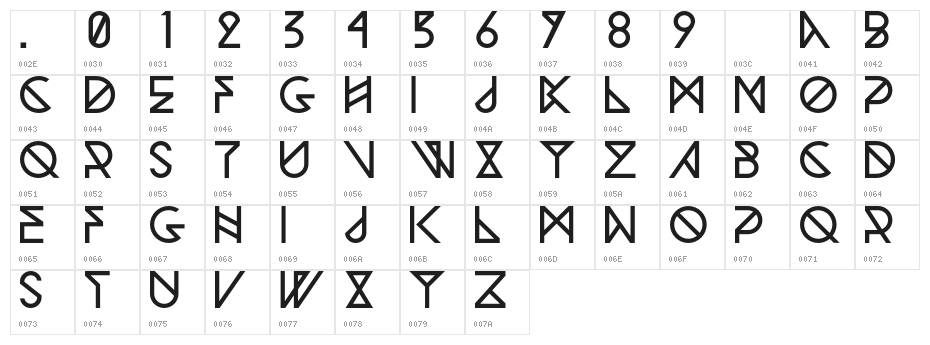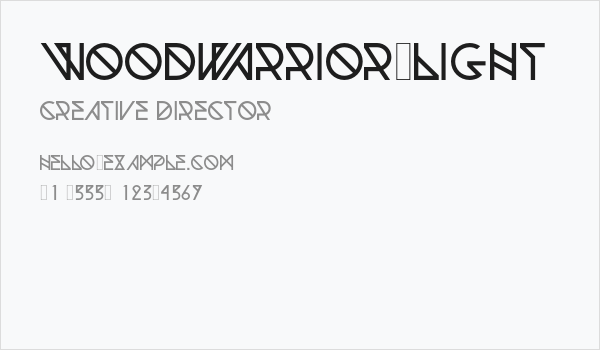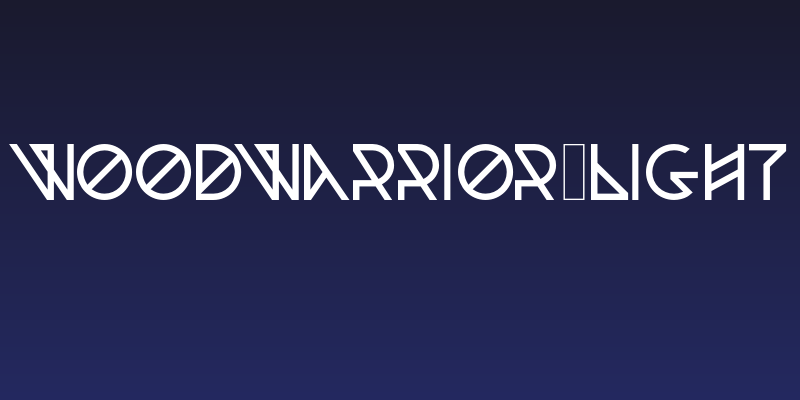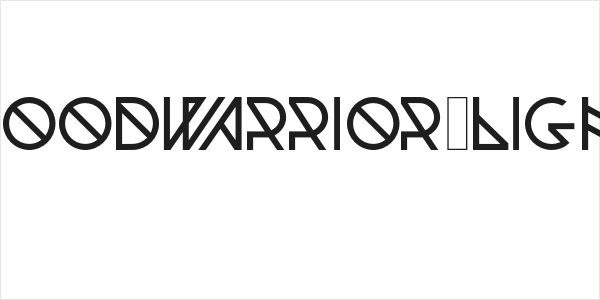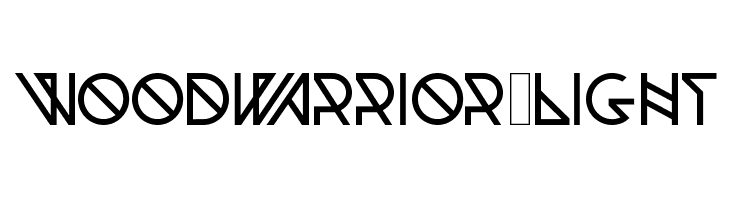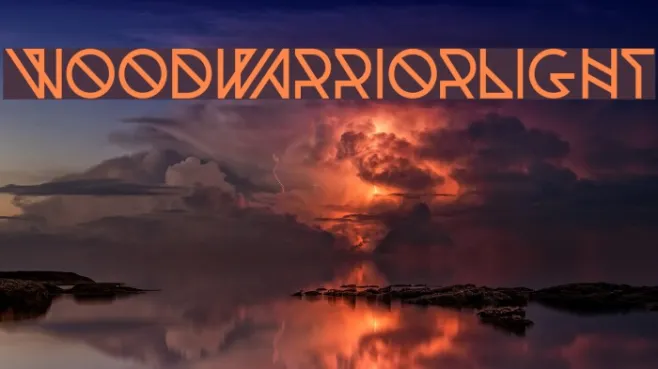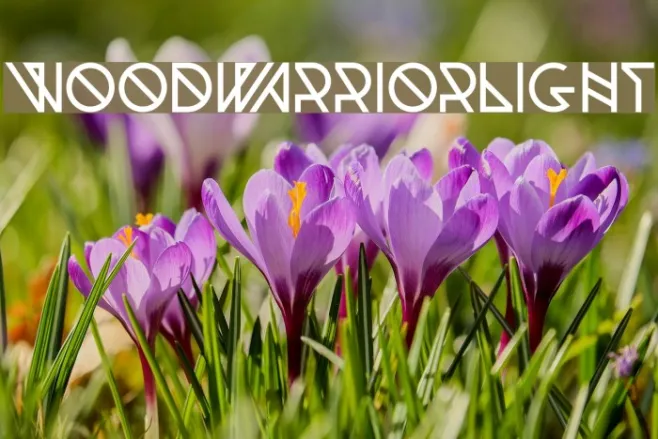
Woodwarrior-Light Font
Woodwarrior-Light Description
This font features a geometric and angular design, characterized by sharp edges and a modern aesthetic. The uppercase letters exhibit a unique style with triangular and diagonal elements, creating a sense of movement and energy. The lowercase letters maintain this angular theme, offering a cohesive look across the alphabet. Numbers are bold and distinct, following the same geometric principles. Special characters are designed with a similar angular approach, ensuring consistency throughout. The overall appearance is striking and contemporary, suitable for projects that require a bold and modern touch.
| Proposed Projects | Ideal for branding, posters, album covers, and modern digital interfaces. |